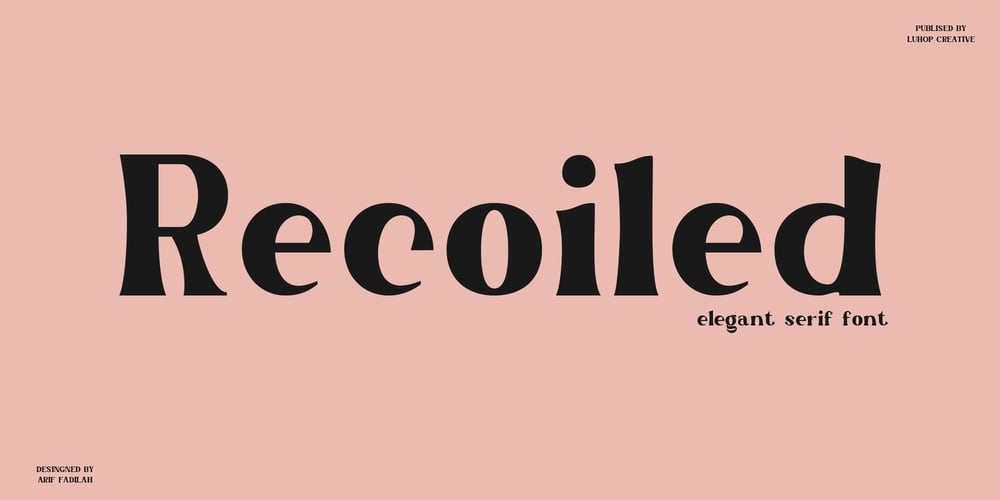
Recoiled Font Family was designed by Arif Fadilah and published by Luhop Creative. Recoiled contains 1 styles and family package options. Recoiled is a elegant serif font. Made for any professional project branding. It is the best for logos, branding and quotes. Every letter has a unique and beautiful touch.a great choice for branding, logos, stickers, svg designs, shirts, social media, advertisements, product packaging and more!Font Features : Character set A-Z in uppercase and lowercase Ligatures Numerals & Punctuation Accented Characters Multilingual Support Thank you for downloading premium fonts from Luhop Creative